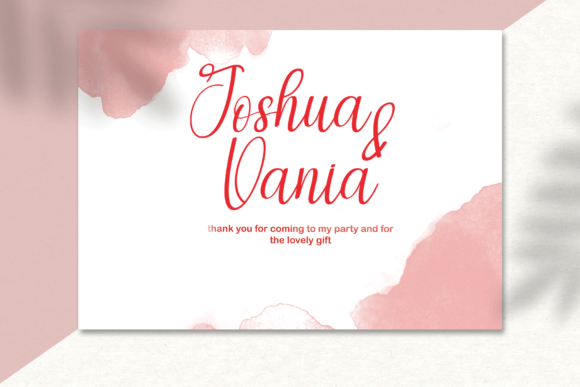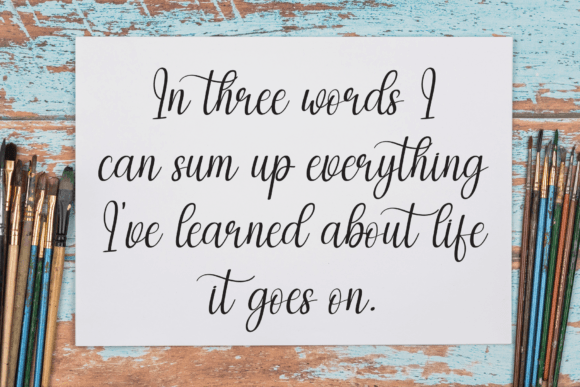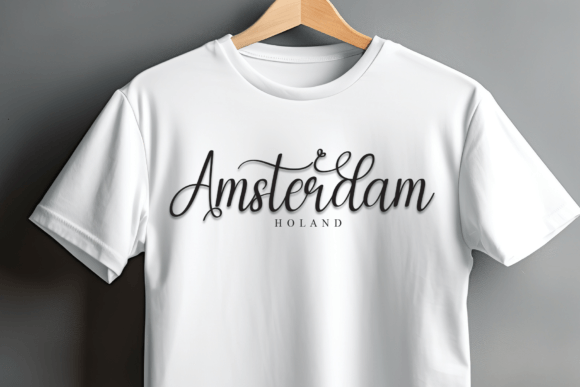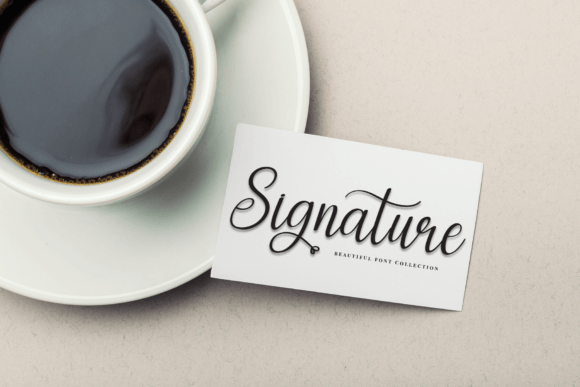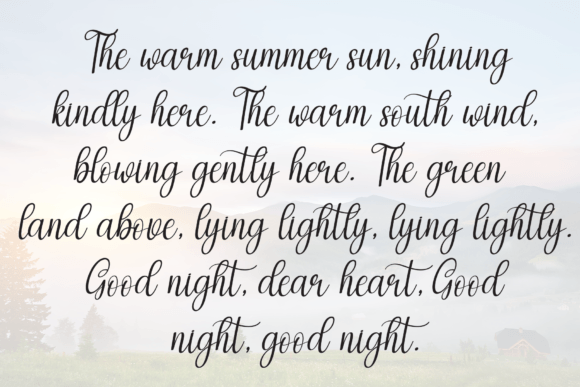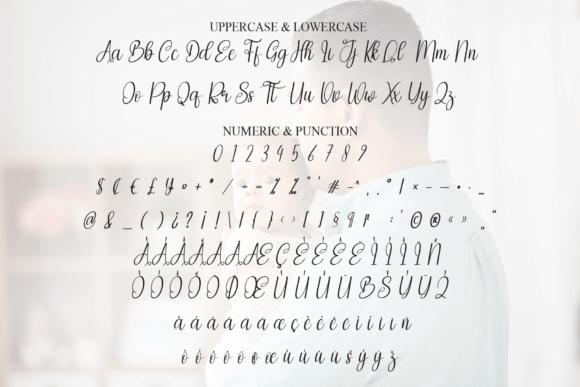
Daddy Baby Font: Elevate Your Designs with Elegance and Charm
In the world of typography, fonts play a crucial role in conveying the tone and personality of a design. For designers and crafters looking to add a touch of sophistication and elegance to their projects, the Daddy Baby Font is an excellent choice. This stylish handwritten script font is designed to exude charm and refinement, making it perfect for a variety of applications, from invitations and logos to branding and more.
The Characteristics of Daddy Baby Font
The Daddy Baby Font is distinguished by its flowing, graceful curves that bring a sense of luxury and refinement to any design. Its delicate strokes add a personal touch, making it ideal for projects that require a level of sophistication and elegance. The font’s unique character lies in its ability to balance beauty with readability, ensuring that your message is conveyed with clarity and style.
Perfect for Invitations and Special Occasions
Invitations, wedding cards, and special occasion announcements often require a font that conveys warmth, joy, and a sense of celebration. The Daddy Baby Font fits the bill perfectly, with its elegant and charming appearance that sets the tone for a memorable event. Whether you’re designing a formal wedding invitation or a casual birthday card, this font adds a touch of class and sophistication that will leave a lasting impression.
Enhance Your Logos and Branding with Daddy Baby Font
For businesses and entrepreneurs looking to establish a strong brand identity, the Daddy Baby Font offers a unique opportunity to create a lasting impression. Its stylish and refined appearance makes it perfect for logos, business cards, and other branding materials. By incorporating this font into your design, you can convey a sense of professionalism and elegance that sets your brand apart from the competition.
Why Designers and Crafters Love Daddy Baby Font
Designers and crafters appreciate the versatility and creativity that the Daddy Baby Font brings to their projects. Here are a few reasons why:
- Elegance and Sophistication: The font’s flowing curves and delicate strokes add a level of refinement and luxury to any design.
- Versatility: Suitable for a wide range of applications, from formal invitations to logos and branding materials.
- Easy to Read: Despite its elegant appearance, the font remains highly readable, ensuring that your message is conveyed clearly.
- Customizable: The font can be easily customized to fit your project’s specific needs, allowing for endless creative possibilities.
Tips for Using Daddy Baby Font Effectively
To get the most out of the Daddy Baby Font, consider the following tips:
- Pair with Complementary Fonts: Combine the Daddy Baby Font with simpler fonts to create visual interest and hierarchy in your design.
- Adjust Font Sizes: Experiment with different font sizes to emphasize certain elements and create a balanced design.
- Play with Colors: Take advantage of the font’s elegance by using it with a range of colors that complement your design’s theme.
The Daddy Baby Font is a beautiful and versatile addition to any designer’s or crafter’s toolkit. Its elegant appearance, combined with its readability and customizability, makes it perfect for a wide range of projects. Whether you’re creating invitations, logos, or branding materials, this font is sure to bring a touch of sophistication and charm to your designs. With the Daddy Baby Font, you can elevate your projects and create memorable, impactful designs that leave a lasting impression.